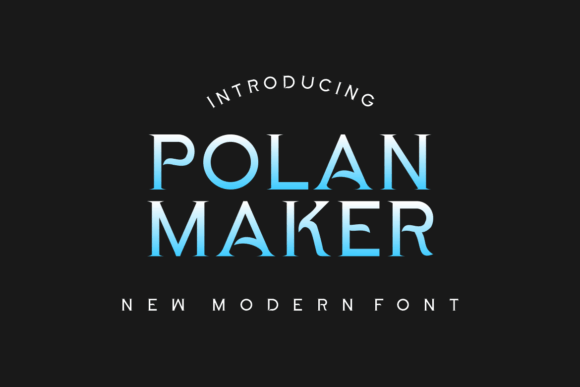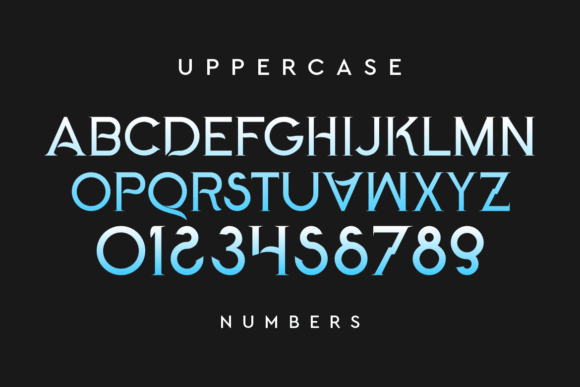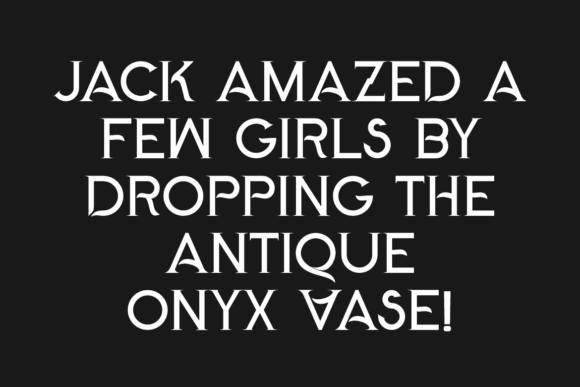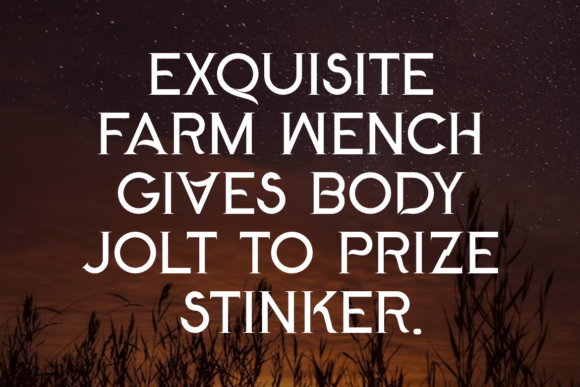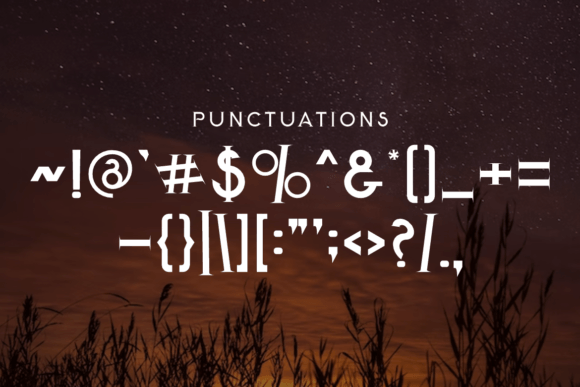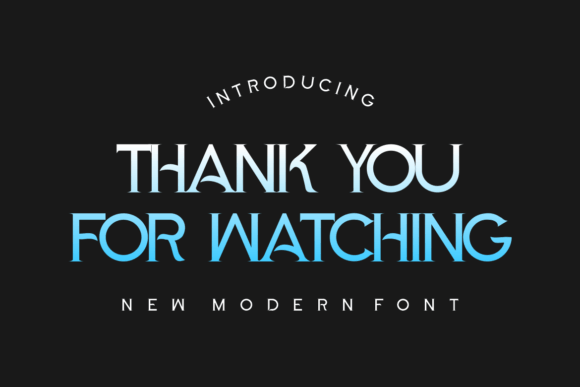
Introduction to Polan Maker Font Font
Fonts play a crucial role in design, and the Polan Maker Font font is a typeface that brings both character and versatility to any project. Whether you’re working on a branding project, a website, or a print design, the Polan Maker Font font offers a unique style that can elevate your work.
Polan Maker is a unique and incredibly stylish display font.
Specially designed for luxury, elegant, feminine projects, this font is perfectly suitable for creating modern, chic designs .
Key Features of Polan Maker Font Font
Why Choose Polan Maker Font Font?
The Polan Maker Font font is more than just a typeface – it’s a design tool that helps you communicate your message with style and clarity. Its unique character set and versatile design make it suitable for a wide range of applications, from elegant invitations to bold headlines.
With its carefully crafted letterforms and balanced proportions, the Polan Maker Font font ensures readability and visual appeal across all mediums.
What makes Polan Maker Font font special?
The Polan Maker Font font stands out with its unique design, exceptional readability, and versatility across various design applications.